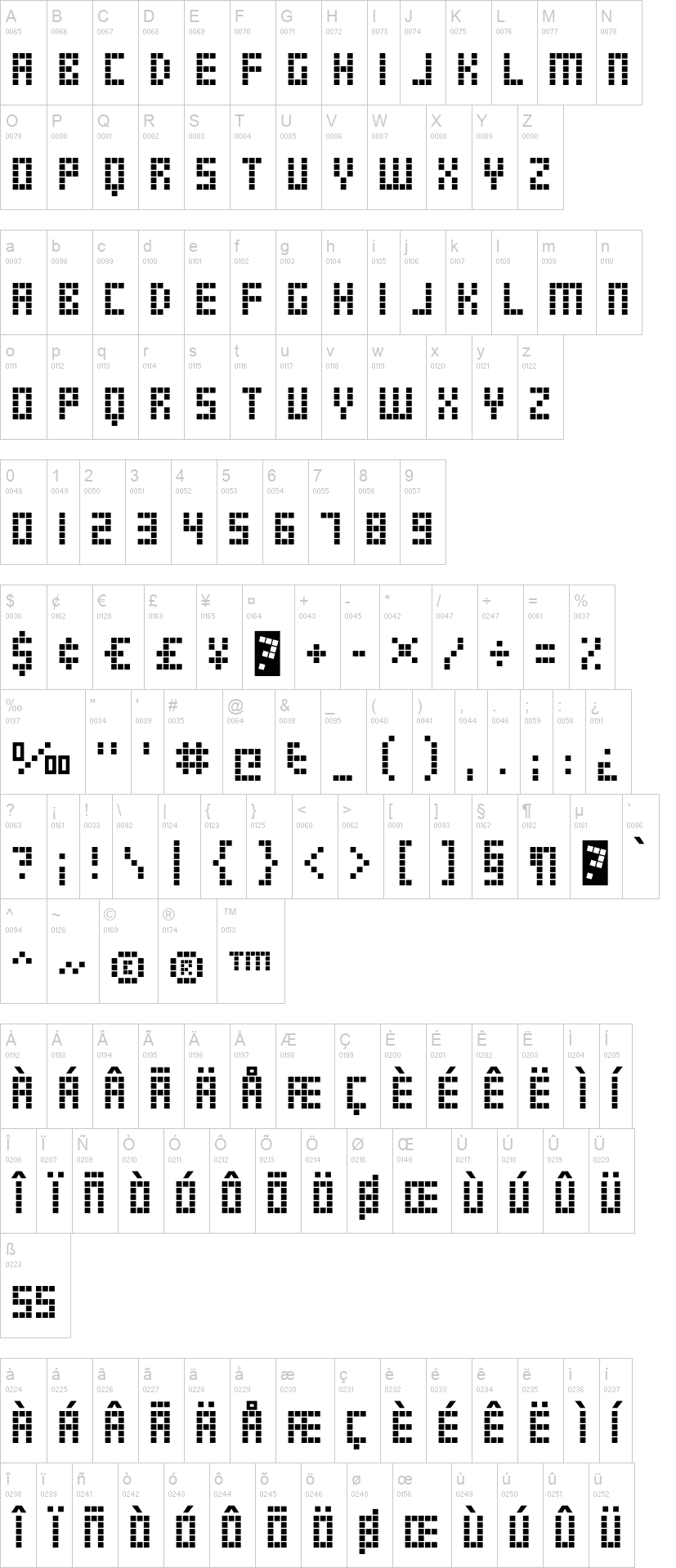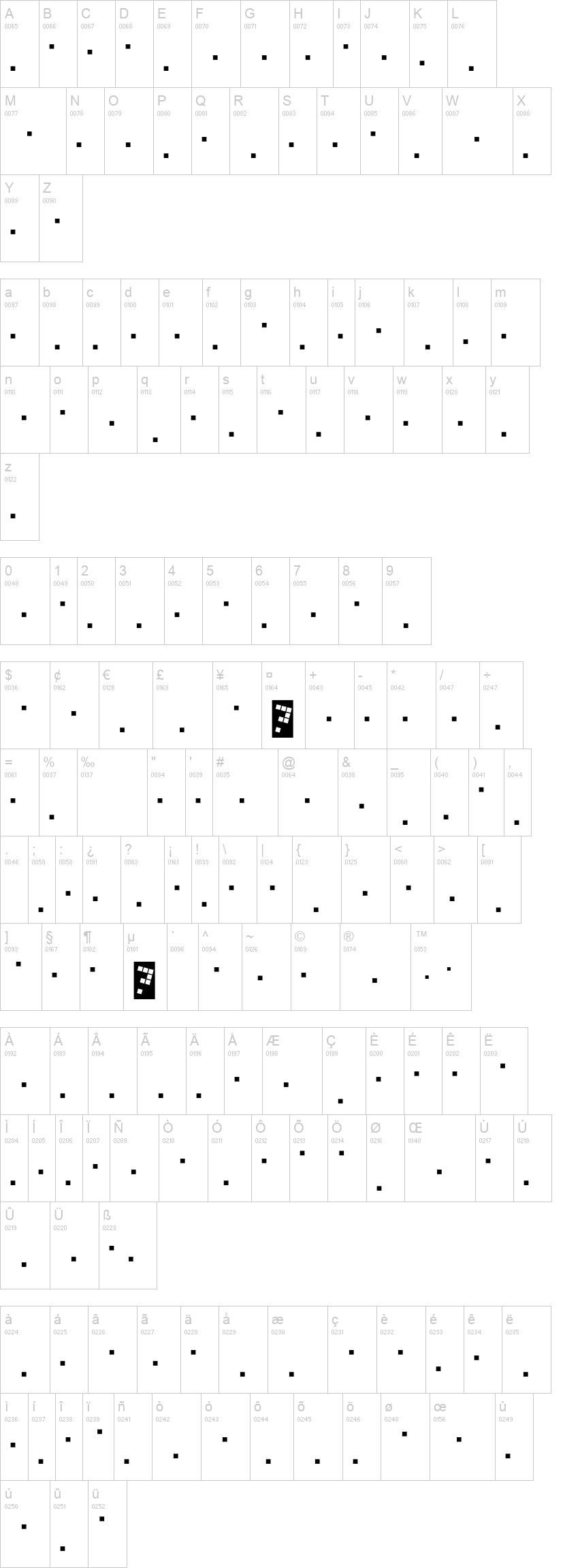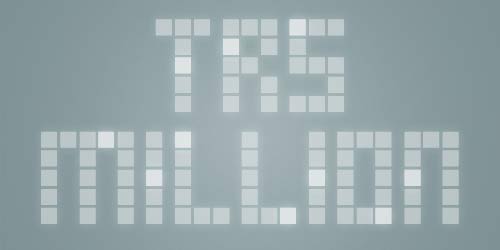
TRS-Million Twinkle.otfNote of the authorTRS-Million Regular is a pixel headline font. TRS-Million Twinkle is an optional dot layer. Both fonts can be overlaid with different colors to simulate worn out LEDs, different colored LEDs, electronic glitches & stuff. In OpenType savvy applications, the placement of the dots will appear to be somewhat random.